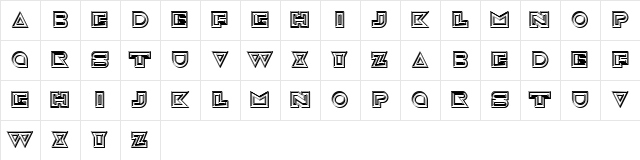
Bully Regular
Design Context for Bully
Bully is a composed and adaptable typeface that performs quietly and consistently across a wide range of design contexts.